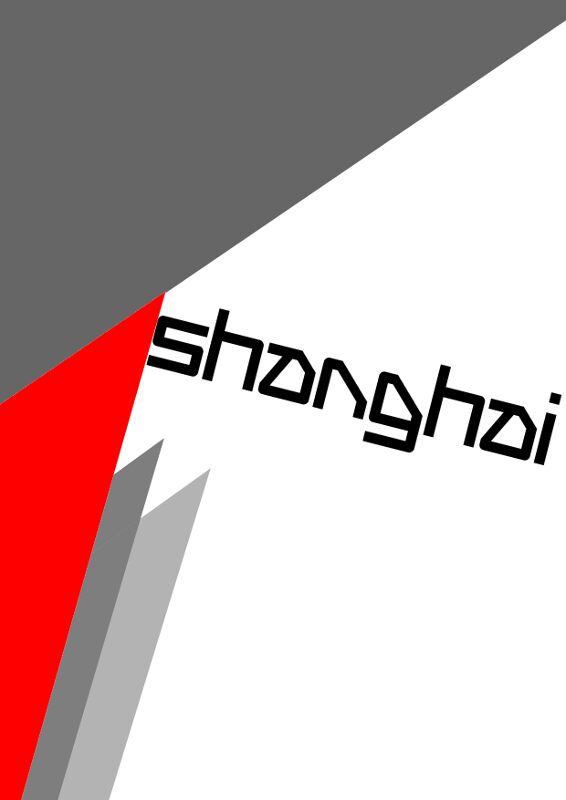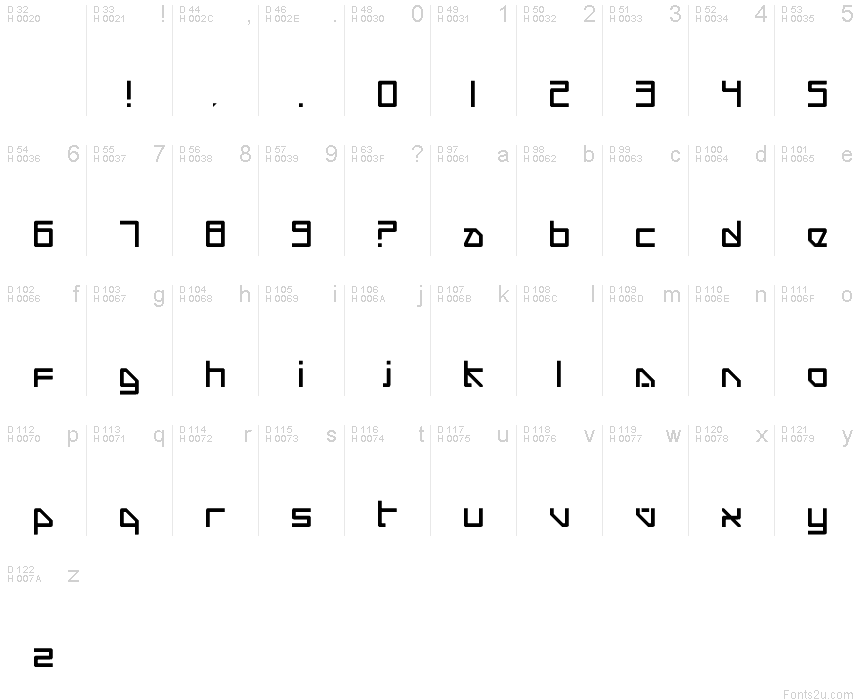
Shanghai by floor-3013 of FontStruct is a free futuristic display font built from angular strokes, rigid geometry, and broad letterforms with an assertive industrial silhouette. Diagonal joins and clipped corners sharpen its modular construction.
Technology brands and gaming audiences are the clearest match for this style, especially in logos, interface graphics, event posters, and merchandise aimed at viewers drawn to hard-edged, engineered graphics. Its severe angles make those applications especially convincing for electronic music and science-fiction themes, since the lettering can become part of a circuit diagram, industrial control panel, or block-built cityscape rather than neutral text.
This font is a companion to Beijing, with diagonals running in the opposite direction.
Made in 2009.